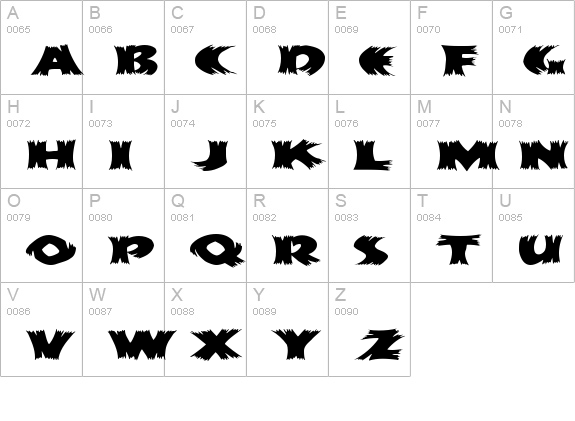
Hay Stack MF Wide is a distinctive, extended-width variant in the Hay typeface family \xE2\x80\x94 well suited to design and typography projects.
The Hay Stack MF Wide font is a captivating display typeface that exudes a rustic and handcrafted charm. With its wide letterforms and unique character shapes, this font is perfect for adding a touch of warmth and personality to any design project. Whether you're creating posters, logos, or branding materials, Hay Stack MF Wide will make your text stand out with its bold presence. Best of all, this versatile font is available for free download at FontsMarket.com. Embrace the creativity and flexibility that Hay Stack MF Wide offers without any cost attached. Download this font today and elevate your designs with its distinctive style and visual appeal.